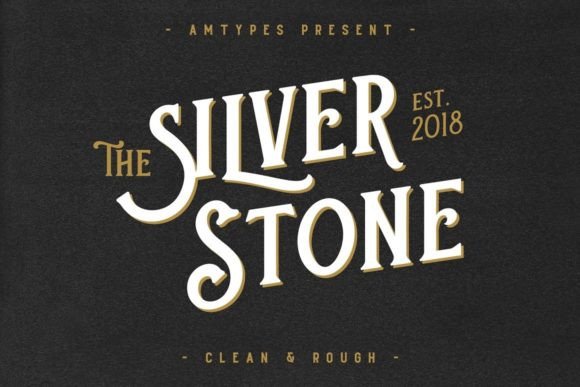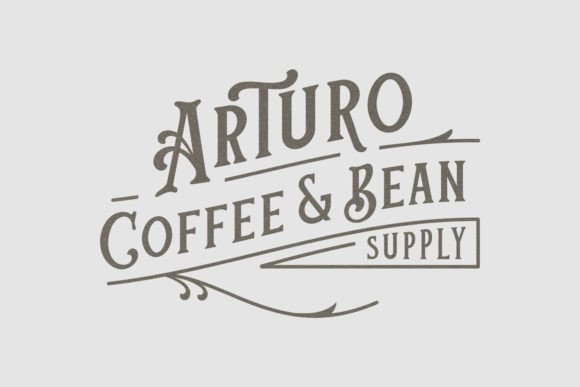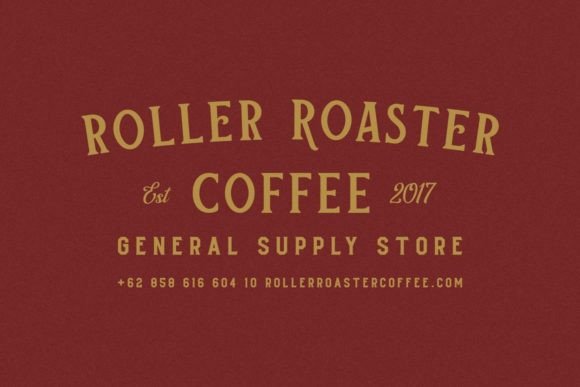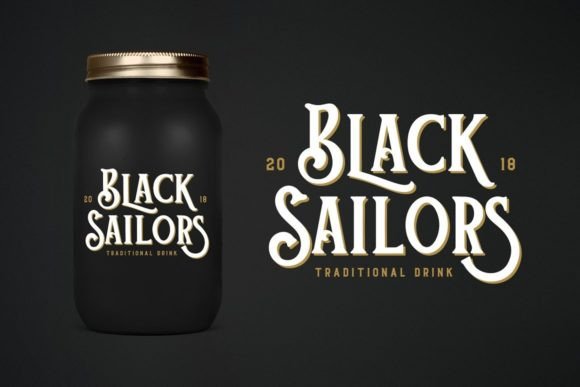
Silver Stone Font: A Rustic Vintage Serif for Logo Design & Branding
About the Silver Stone Font
Add a touch of class to your work with the Silver Stone Font, a truly exceptional typeface. Silver Stone is a new vintage serif font inspired by vintage packaging, vintage book covers, and vintage tins. This font is perfect for a vintage design logo, branding, or product packaging.
Silver Stone Font Usage Examples
Silver Stone Font Example